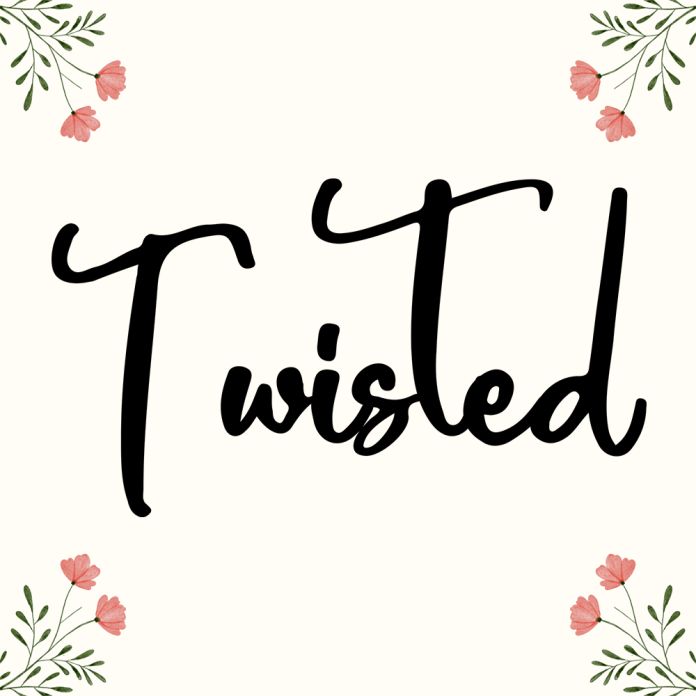
Twisted is a gorgeous script font. Its natural and unique style makes it incredibly fitting to a large pool of designs. The only limit is your imagination!